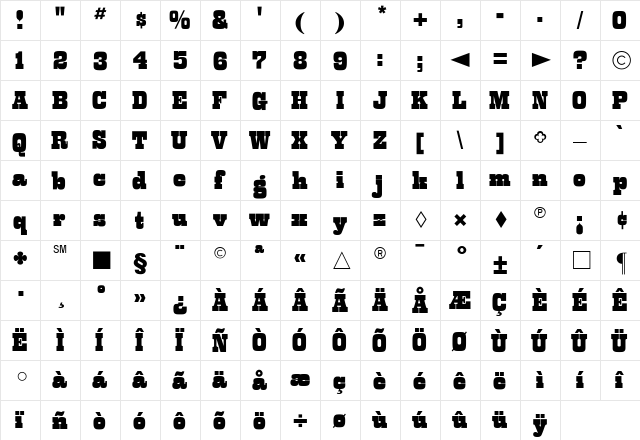
CgBarnumBlock Medium
Design Context for CgBarnumBlock Typeface
CgBarnumBlock offers clean, dependable letterforms without strong stylistic allegiance, making it a practical choice for designers who need flexibility.